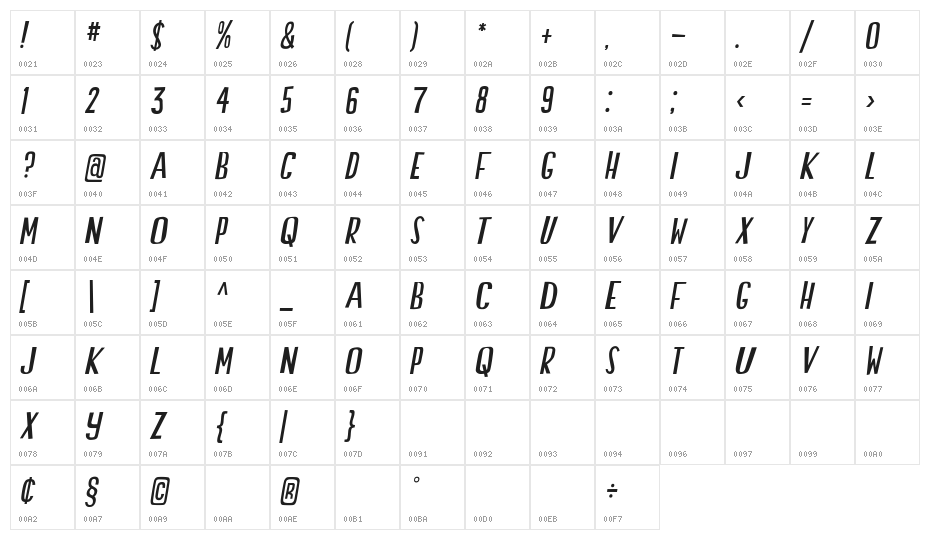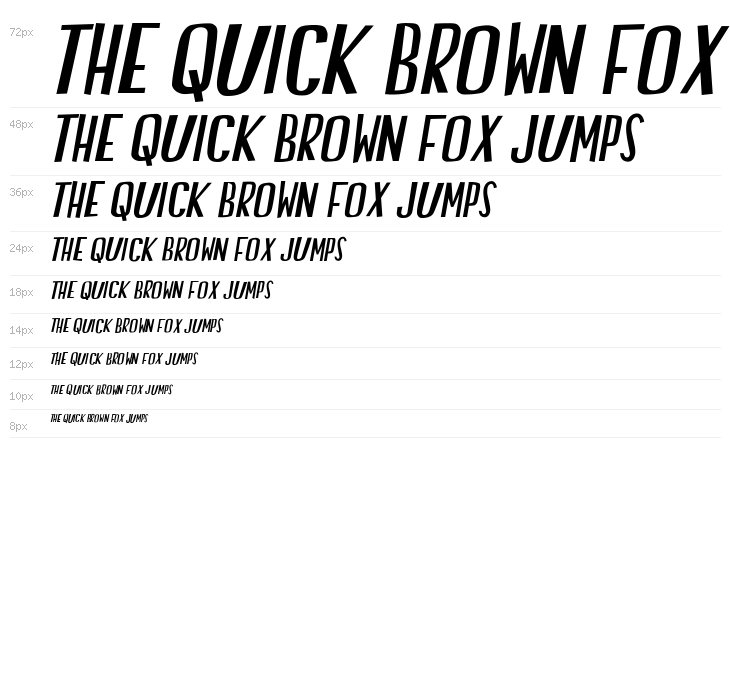
Swallow Falls Italic Font
Swallow Falls Italic Description
This font features a dynamic and energetic style with a pronounced italic slant, giving it a sense of motion and urgency. The characters are tall and narrow, with a consistent stroke width that maintains a clean and modern appearance. The uppercase letters are particularly striking, with sharp angles and a sleek design that enhances readability. The numerals and special characters are well-integrated, maintaining the font's overall aesthetic. This font's unique style makes it suitable for projects that require a bold and contemporary look.
| Proposed Projects | Ideal for branding, advertising, posters, and headlines that need a bold and modern touch. |